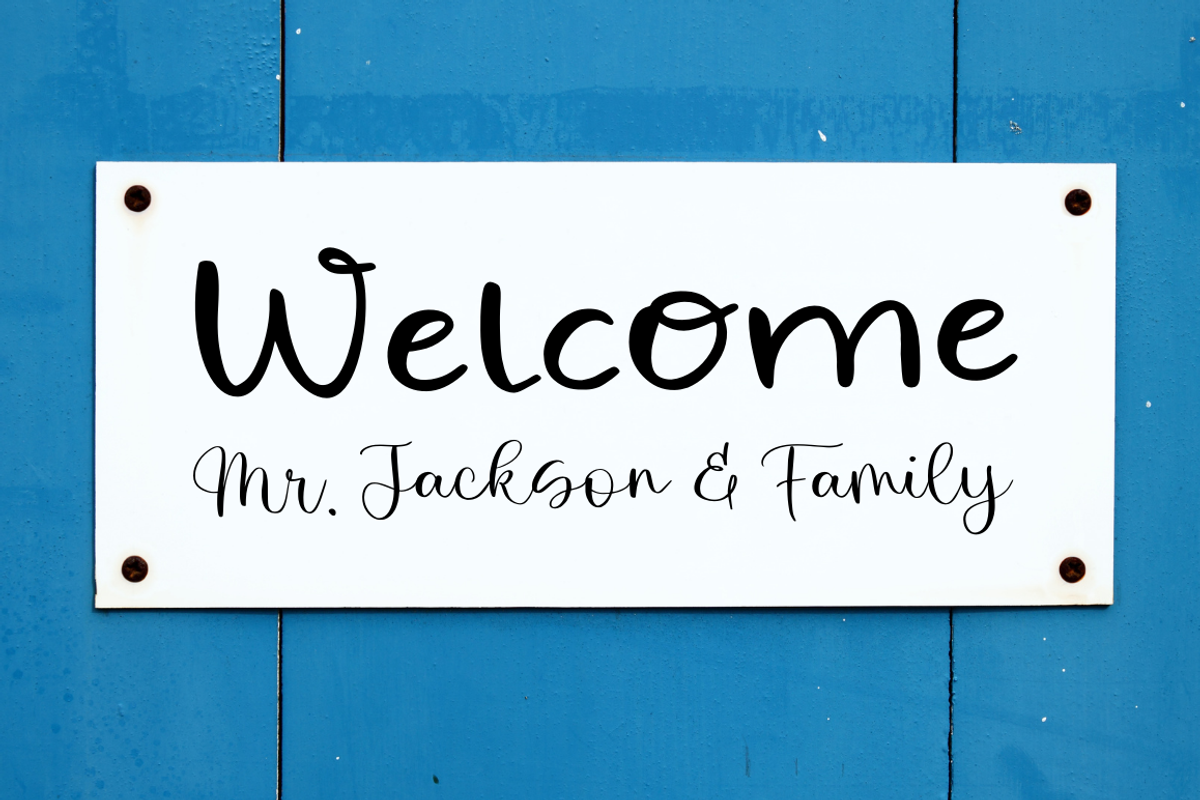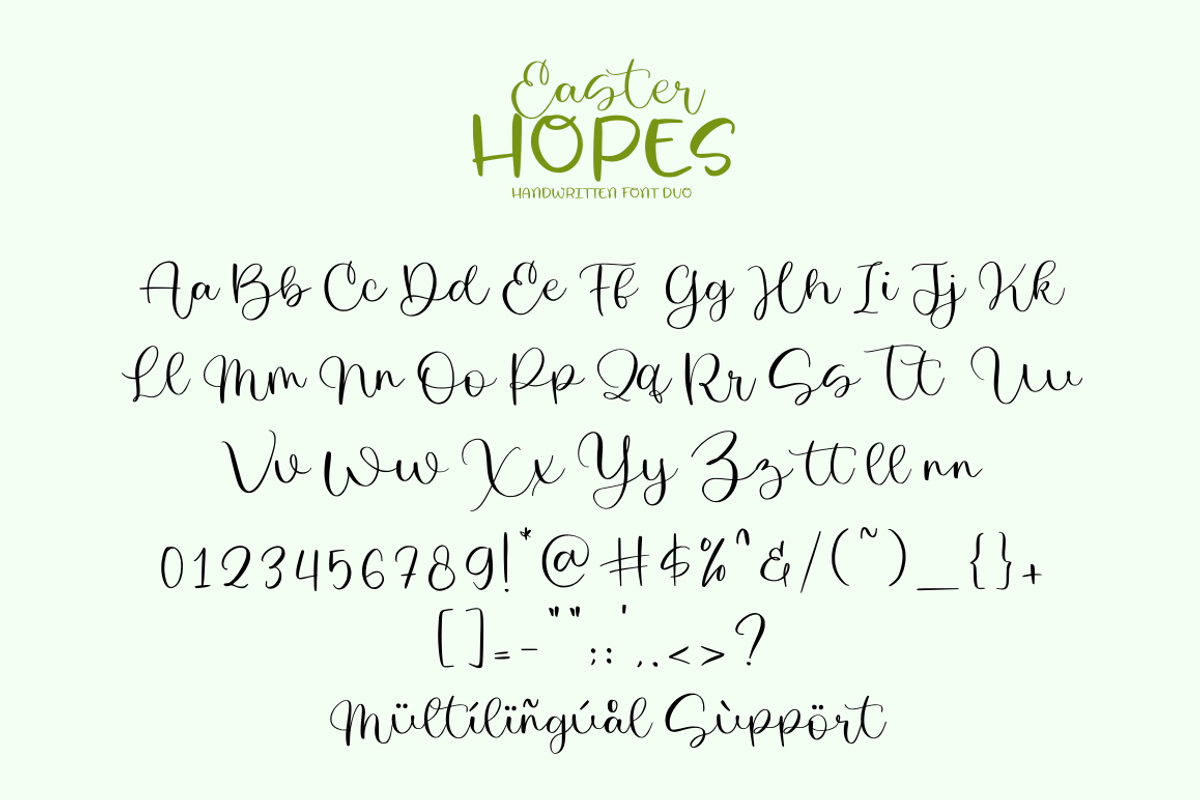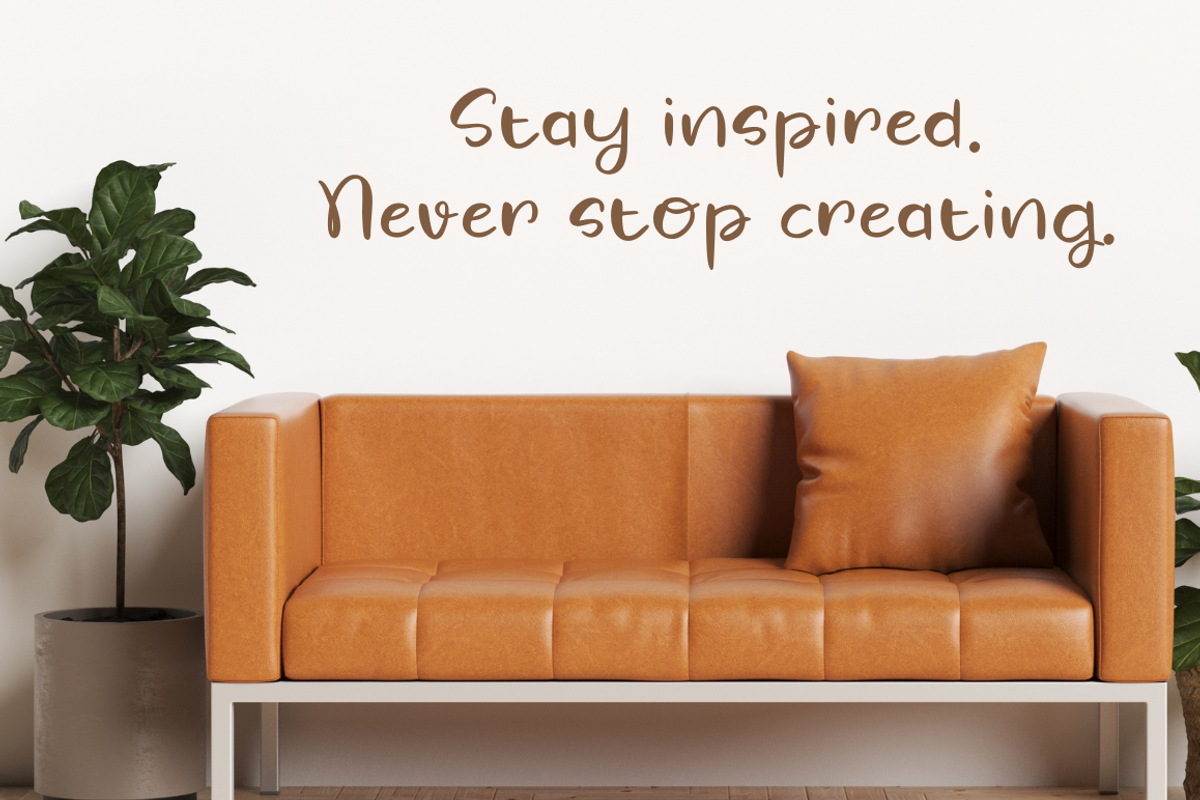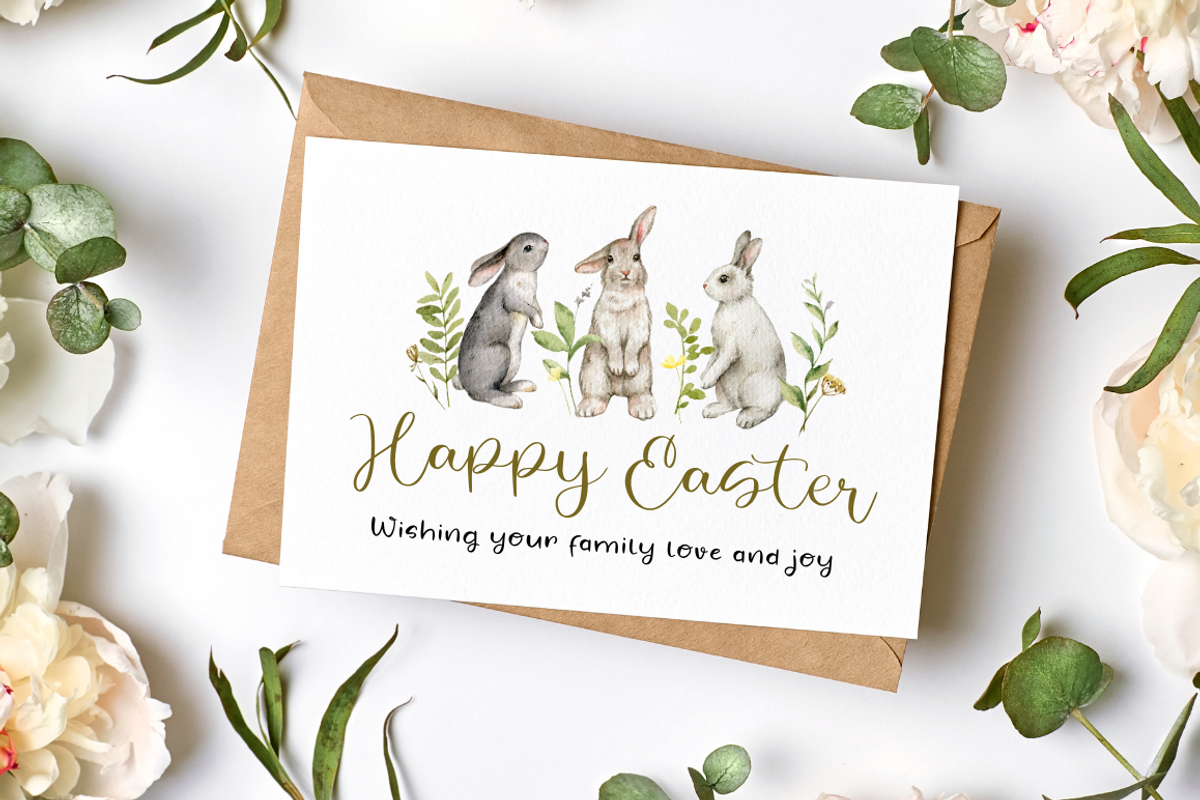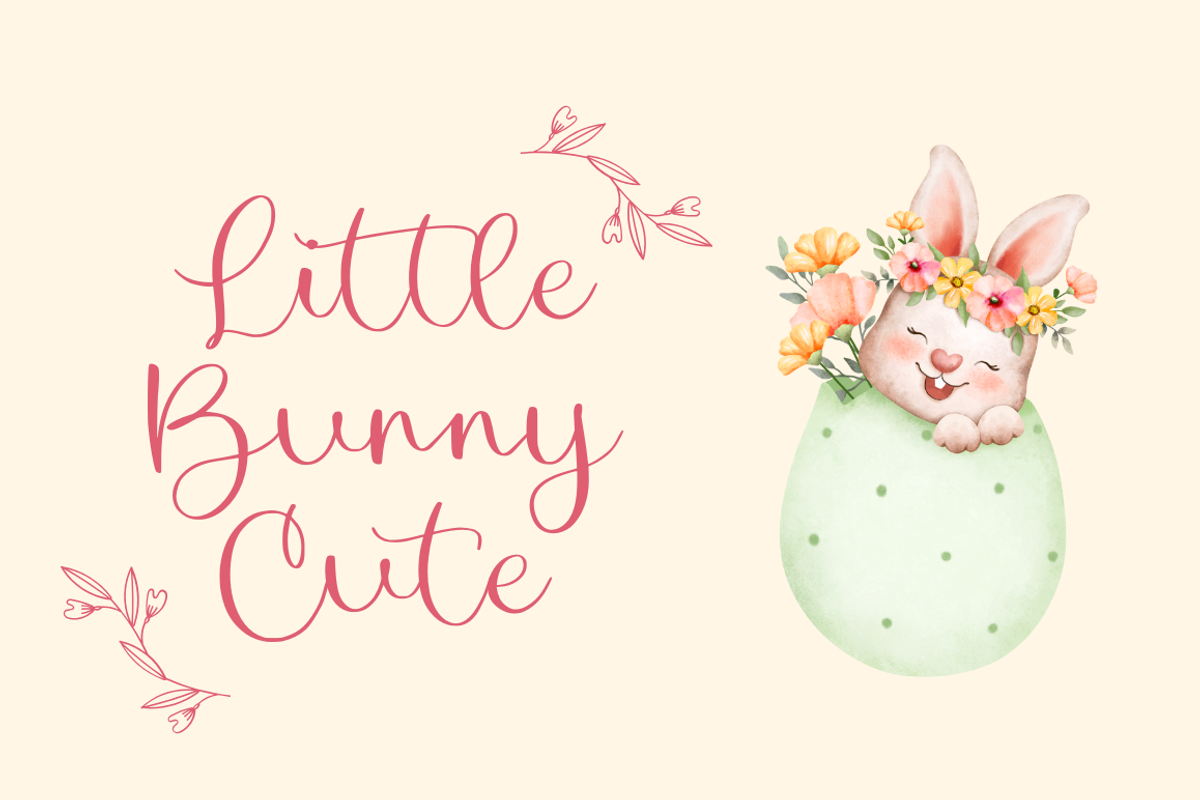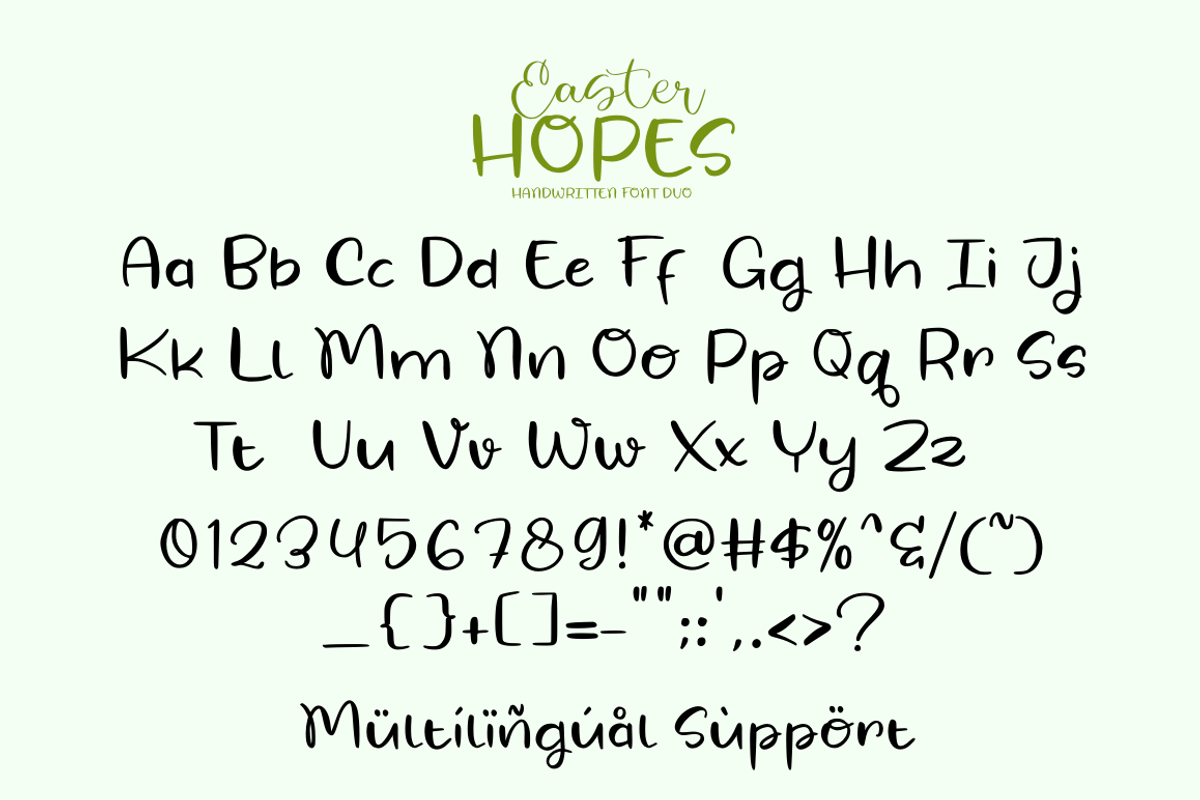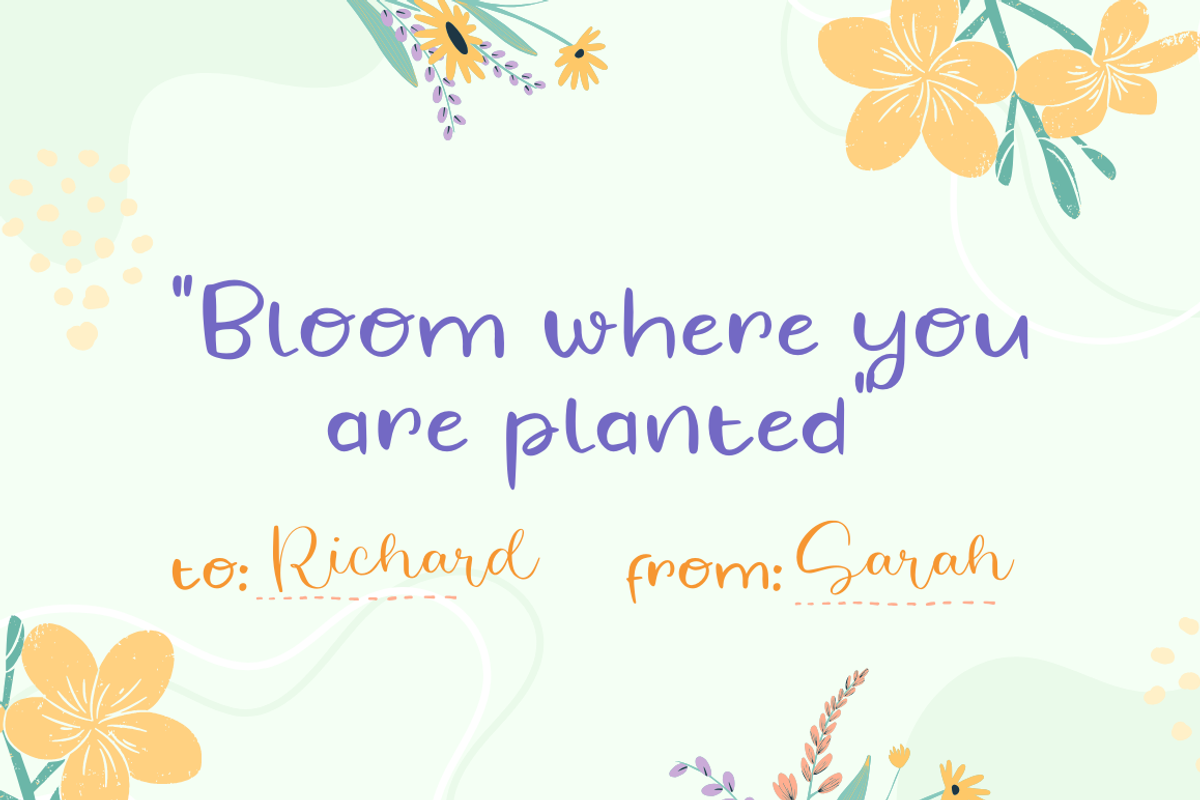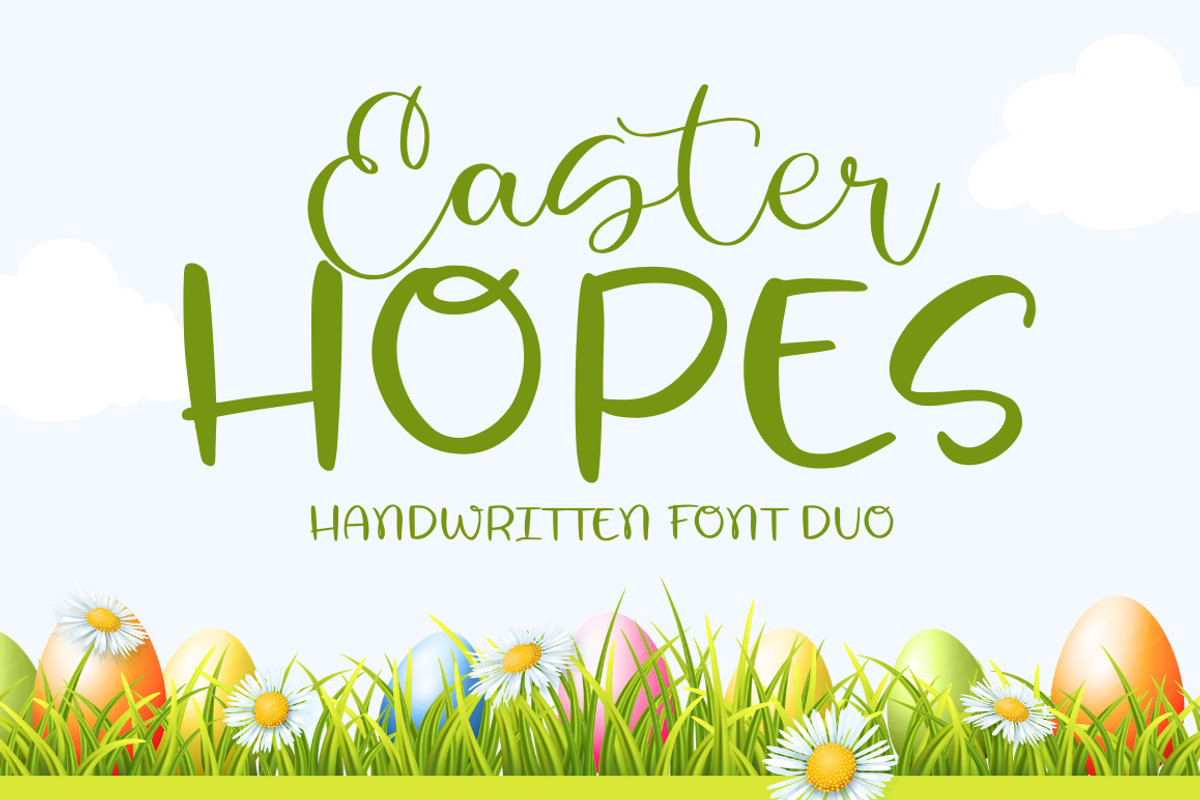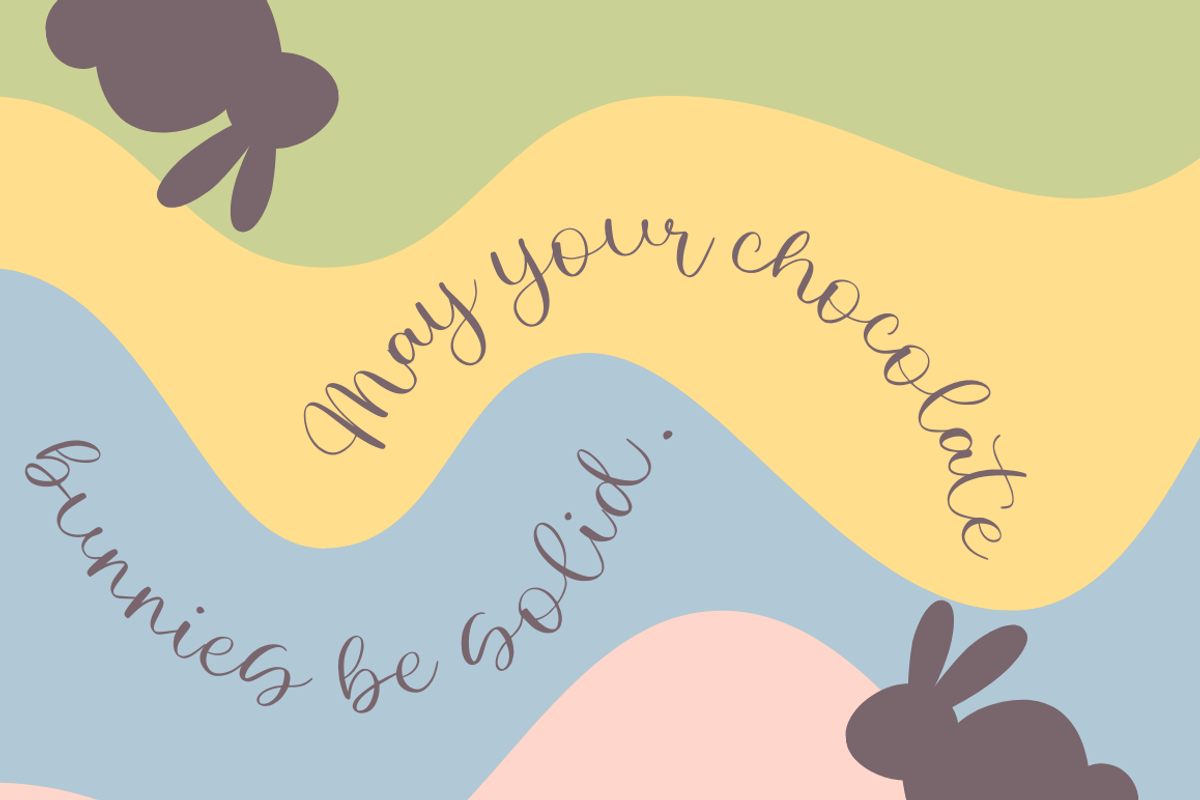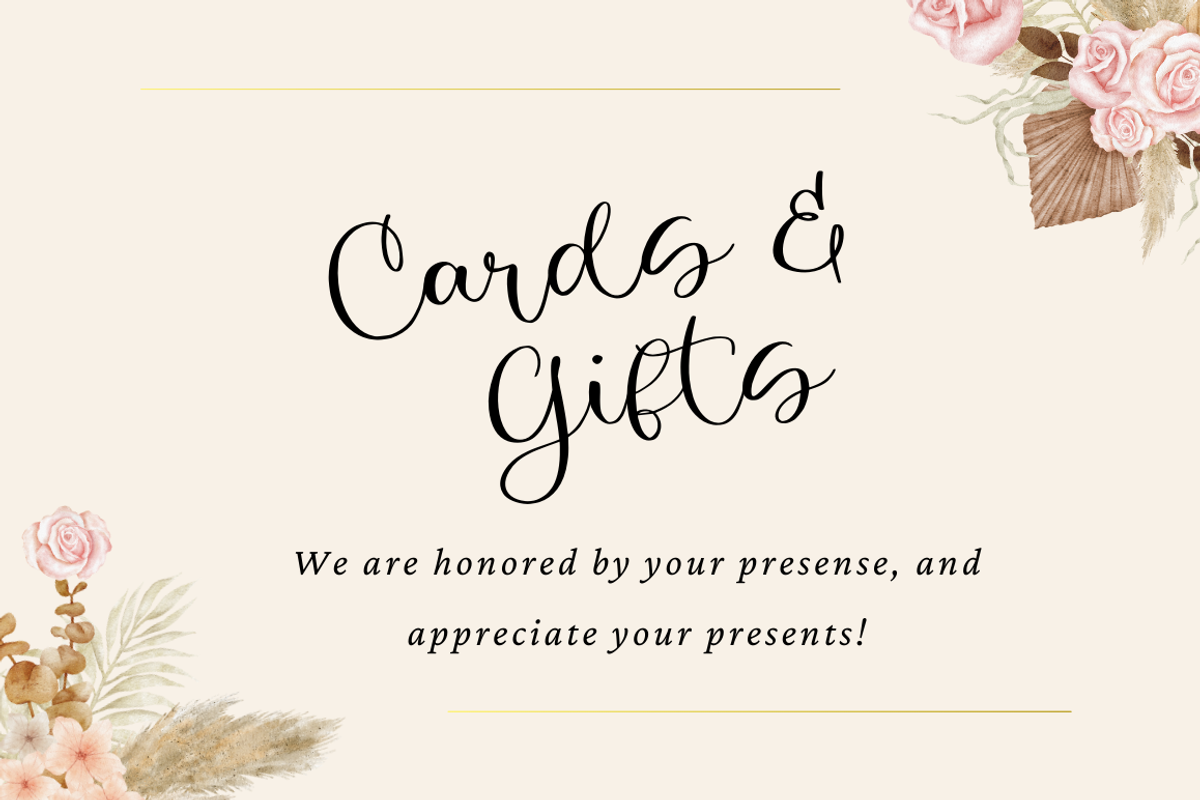
Easter Hopes
Introducing “Easter Hopes,” a charming handwritten font duo that brings a touch of whimsy and elegance to your designs. This duo features two complementary styles: a playful script font and a sophisticated handwritten font. Perfect for a variety of projects, including invitations, cards, branding, and more, “Easter Hopes” adds a delightful and personalized touch to your creations, ensuring that each design shines with character and charm.